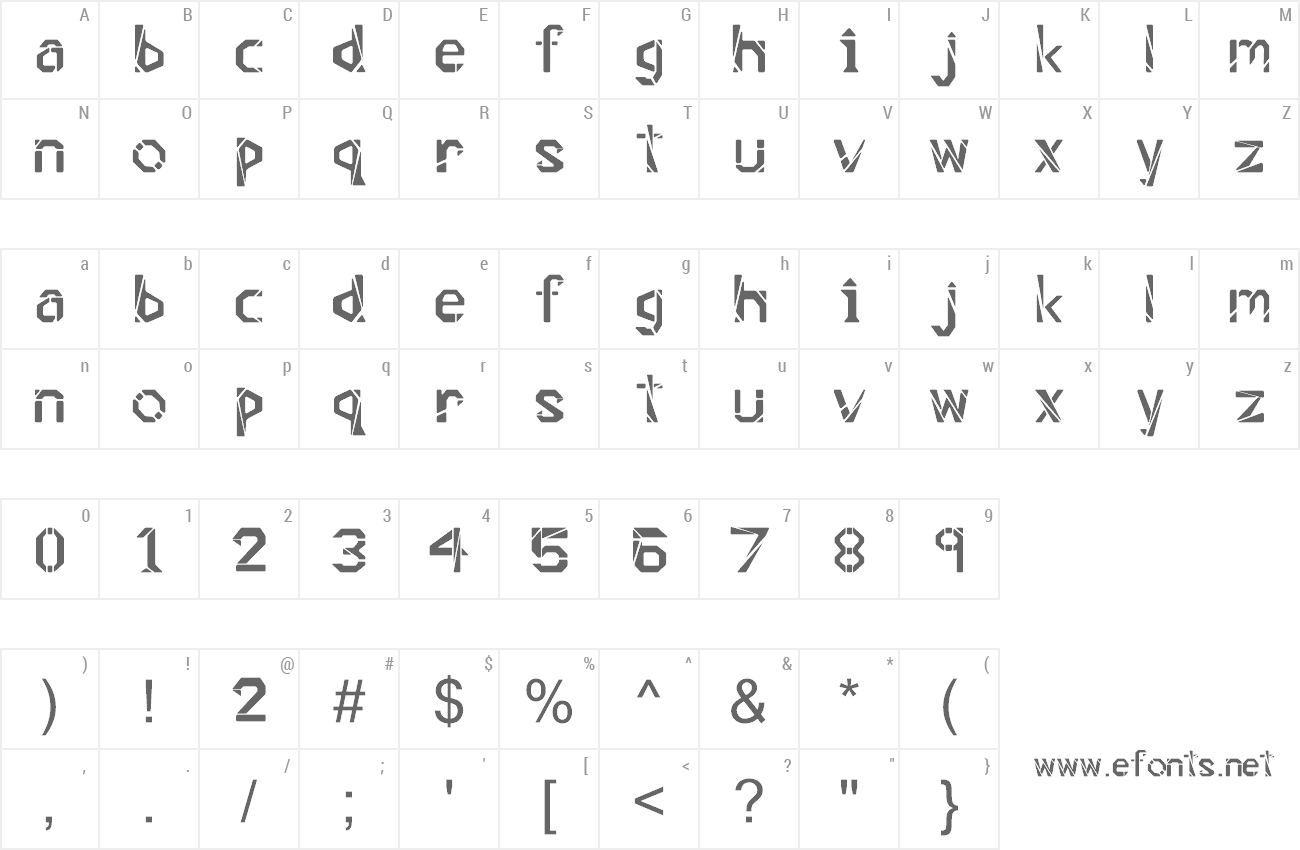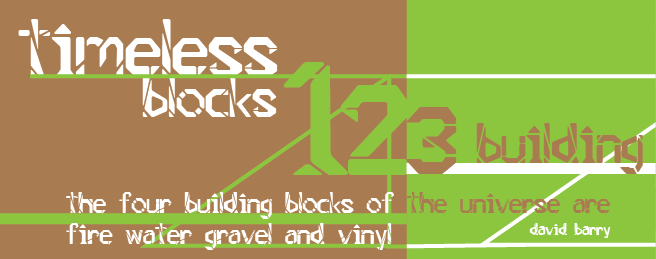
| Font name: | Timeless Blocks |
| Author: | Courtney Babchyck |
| Note by Courtney Babchyck | |
This is a modular typeface inspired by building blocks and the Mayan pyramids. It is free solely for personal use. If you have any questions, please feel free to contact me at babchyckc@gmail.com or courtneybabchyck.tumblr.com. |